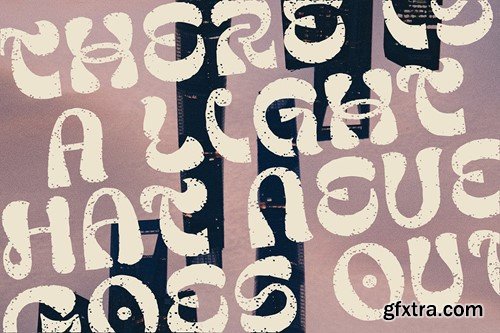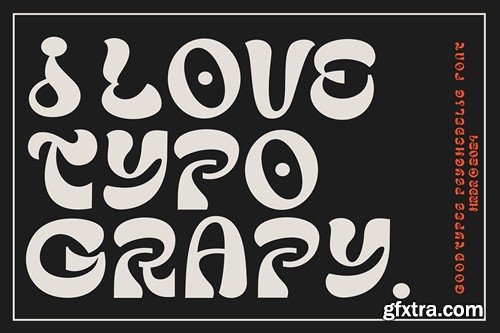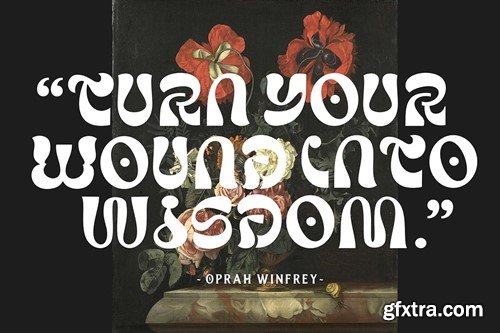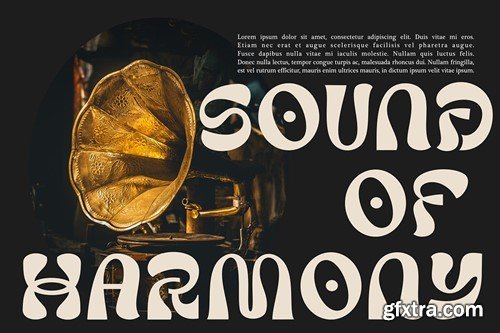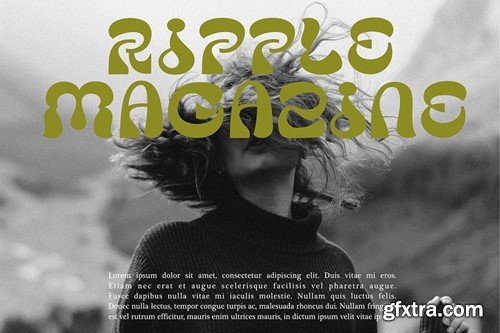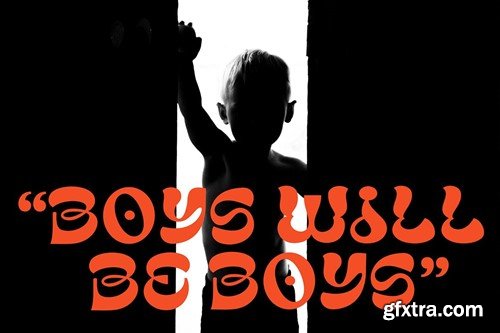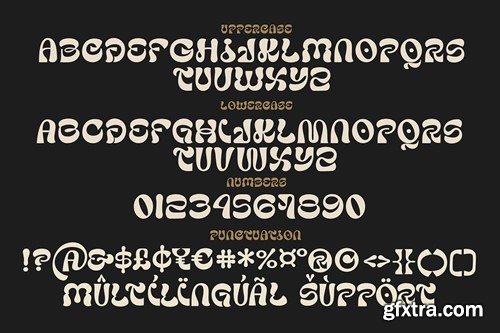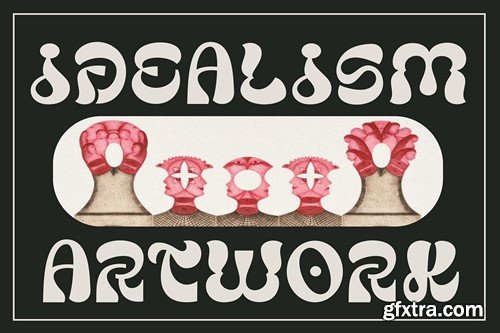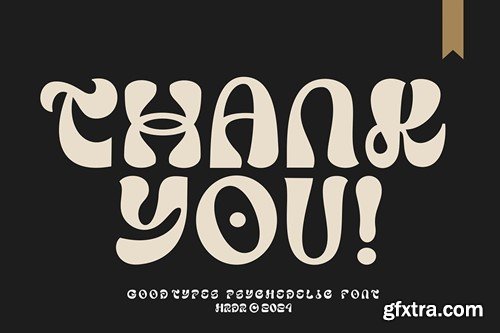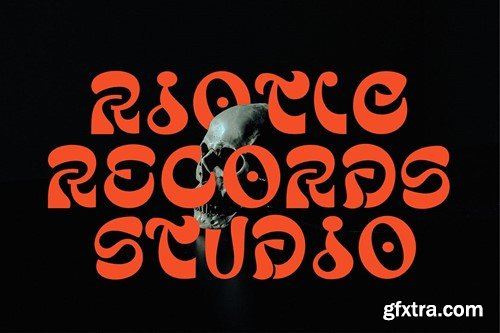
Good Types Font
Good Types is a psychedelic style inspired typeface. Unique tripped out lettering makes this font perfect for those band poster, trippy logos, funky posters, quotes and more. Font Features : Good Types files with OTF and TTF file and support PUA Encoded font files for use with software that doesn't support OpenType features such as Silhouette, Inkscape, etc.